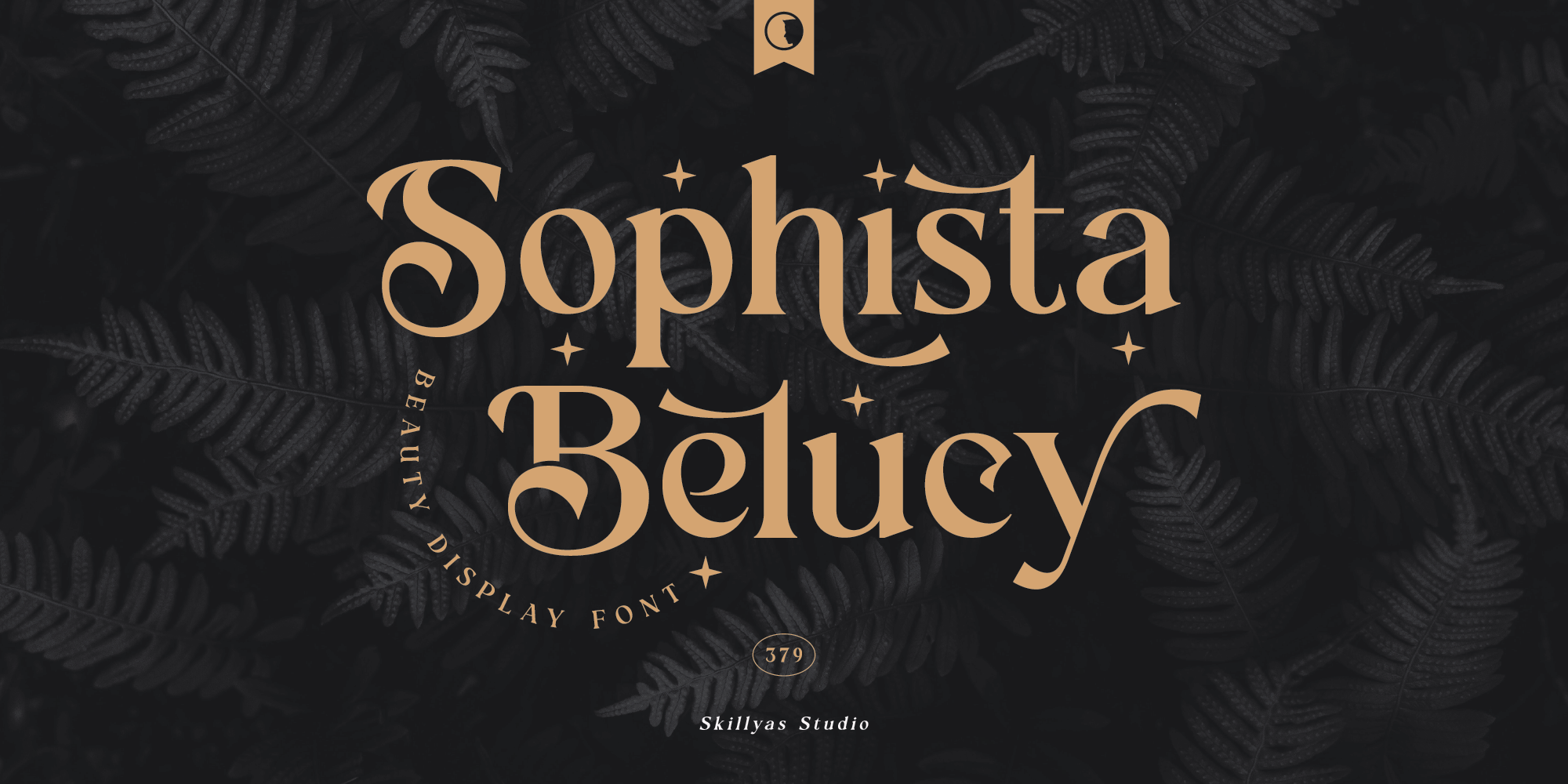
Sophista Belucy Font excels in refined design applications including luxury fashion branding, high-end beauty product packaging, sophisticated magazine editorials, elegant jewelry advertising, premium cosmetics marketing, upscale spa materials, exclusive boutique signage, and cultured advertising campaigns that require typography with intellectual sophistication and refined beauty.
What makes Sophista Belucy Font exciting is its exquisite fusion of intellectual sophistication and feminine elegance that creates an atmosphere of cultured refinement and graceful intelligence. This distinguished typeface features delicately crafted letterforms with sophisticated curves and refined details that instantly communicate wisdom, beauty, and elevated taste. The font's sophisticated personality and graceful appeal make it perfect for brands seeking to establish intellectual credibility while maintaining feminine elegance and communicate values of refinement, intelligence, and sophisticated beauty.
Sophista Belucy Font family encompasses multiple weights and elegant variations designed for comprehensive sophisticated communication. The family typically includes light, regular, medium, bold, and elegant weights, complemented by refined italics, decorative alternates, and extensive character sets with sophisticated ligatures that enhance its cultured aesthetic and provide ultimate refinement.
Luxury beauty designers consistently choose Sophista Belucy Font Free Download for projects requiring typography that embodies intellectual sophistication and refined elegance. This distinguished typeface adapts beautifully across premium beauty applications, from exclusive cosmetics packaging to sophisticated fashion editorials, delivering consistent brand messaging with unmistakable cultured authority and feminine grace. The font's meticulously crafted letterforms ensure exceptional readability while maintaining the sophisticated presence that luxury beauty brands demand. Elite fashion agencies worldwide rely on this refined typeface to communicate brand values of intelligence, sophistication, and graceful beauty. Elevate your brand's intellectual elegance with Sophista Belucy Font and create memorable visual communications that resonate with audiences who appreciate cultured sophistication, refined intelligence, and the timeless appeal of sophisticated feminine beauty.